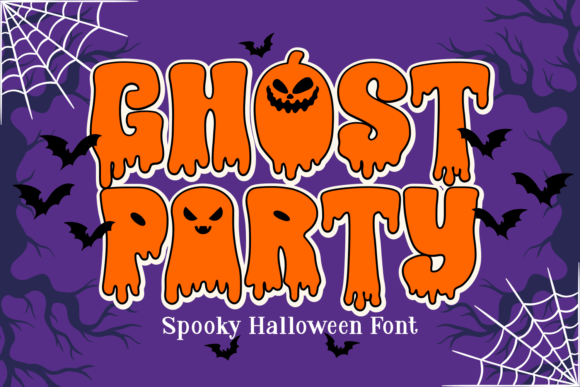
Introducing Ghost Party Font: The Spooky and Quirky Display Font to Elevate Your Designs
In the world of typography, fonts play a crucial role in conveying the tone and personality of a design. Whether you’re working on a creative project, crafting a brand identity, or simply looking to add some flair to your digital content, the right font can make all the difference. If you’re on the hunt for a font that exudes a sense of spookiness and quirkiness, look no further than Ghost Party Font. In this article, we’ll dive into the world of Ghost Party Font, exploring its unique features, and how it can add a bold touch to your designs.
What is Ghost Party Font?
Ghost Party Font is a display font that embodies the spirit of Halloween, with a dash of playfulness and whimsy. This font is designed to make a statement, with bold and eye-catching letterforms that are sure to grab attention. Its unique blend of spooky and quirky elements makes it the perfect addition to any design that requires a touch of eeriness and fun.
Benefits of Using Ghost Party Font in Your Designs
So, why should you consider using Ghost Party Font in your designs? Here are just a few benefits of incorporating this font into your creative projects:
- Adds a bold touch: Ghost Party Font is designed to make a statement, with bold and eye-catching letterforms that are sure to grab attention.
- Perfect for Halloween-themed designs: With its spooky and quirky elements, Ghost Party Font is the perfect choice for Halloween-themed designs, from party invitations to pumpkin carving stencils.
- Versatile: While Ghost Party Font is perfect for Halloween-themed designs, it’s also versatile enough to be used in a variety of other contexts, from branding and advertising to packaging and web design.
- Easy to read: Despite its bold and playful design, Ghost Party Font is surprisingly easy to read, making it perfect for use in body text as well as headlines.
Exploring the Unique Features of Ghost Party Font
So, what sets Ghost Party Font apart from other display fonts on the market? Here are just a few of its unique features:
- Bold and eye-catching letterforms: Ghost Party Font features bold and eye-catching letterforms that are sure to grab attention.
- Spooky and quirky elements: From ghostly serifs to playful swashes, Ghost Party Font is full of spooky and quirky elements that add to its unique charm.
- Support for multiple languages: Ghost Party Font supports multiple languages, making it a great choice for designers working on international projects.
- Easy to customize: With its range of customization options, Ghost Party Font is easy to tailor to your specific design needs.
Design Tips for Using Ghost Party Font
Now that we’ve explored the benefits and features of Ghost Party Font, here are some design tips for using this font in your creative projects:
- Use it sparingly: While Ghost Party Font is bold and eye-catching, it can also be overwhelming if used excessively. Use it sparingly to add emphasis and create visual interest.
- Pair it with complementary fonts: To create a cohesive look, pair Ghost Party Font with complementary fonts that share similar design elements.
- Experiment with colors and textures: Don’t be afraid to experiment with different colors and textures to add depth and visual interest to your design.
- Consider the context: Before using Ghost Party Font, consider the context in which it will be used. Is it for a Halloween party invitation or a year-round design project?
Inspiration for Using Ghost Party Font
If you’re looking for inspiration for using Ghost Party Font, here are a few ideas to get you started:
- Halloween party invitations: Use Ghost Party Font to create spooky and eye-catching party invitations that set the tone for a howling good time.
- Pumpkin carving stencils: Add a touch of personality to your pumpkin carving stencils with Ghost Party Font.
- Branding and advertising: Use Ghost Party Font to add a bold and playful touch to your branding and advertising materials.
- Web design: Add a touch of whimsy to your website with Ghost Party Font, perfect for creating eye-catching headlines and titles.
In conclusion, Ghost Party Font is a spooky and quirky display font that’s perfect for adding a bold touch to your designs. With its unique features, versatility, and ease of use, Ghost Party Font is a great addition to any design toolkit. Whether you’re working on a Halloween-themed project or simply looking to add some personality to your designs, Ghost Party Font is sure to impress.